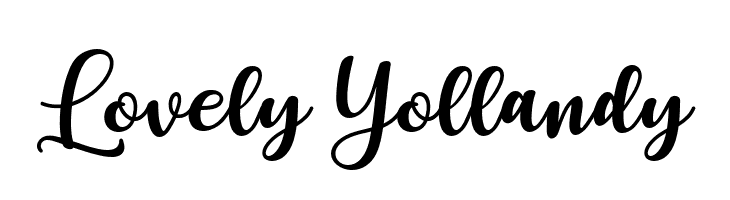
A playful, hand-drawn font with a whimsical and casual style.
( Fonts by Cumberland Fontworks - http://www222.pair.com/sjohn/fonts.htm - S. John Ross )
A bold, playful marker-style font with a hand-drawn appearance.
( Fonts by Insanitype )
A bold, rounded font with a playful and friendly appearance.
( Fonts by Insanitype )
A bold, rounded font with a playful and approachable style.
( Fonts by Meir Sadan - www.sadan.com Sponsoren Schriftart )
A bold, playful font with a hand-drawn, whimsical style.